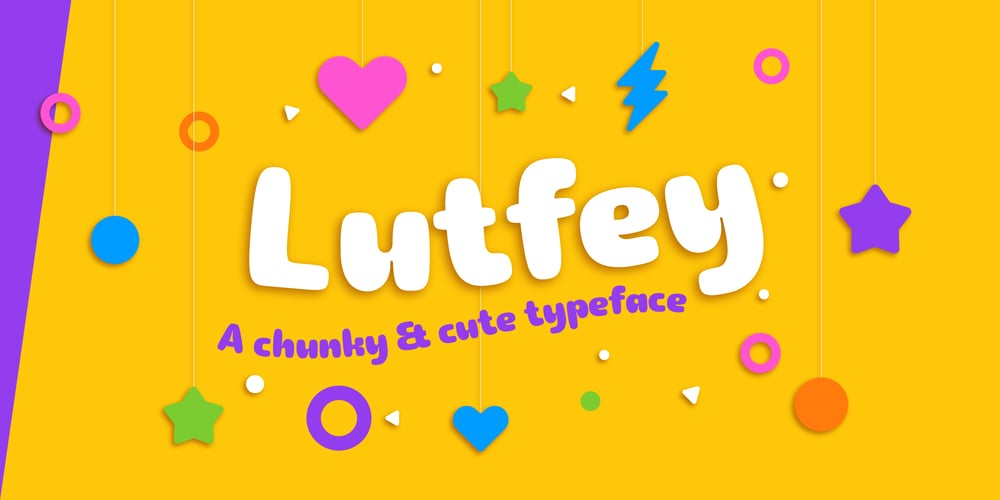
Lutfey Font Family was designed by Nur Syamsi, Bustanul Arifin and published by NamelaType. Lutfey contains 2 styles and family package options. Lutfey is a chunky & cute typeface, visually featuring bold, firm and gentle characters.It’s has smooth lines on each side, especially on the outside, with subtle ink-trap details at every corner.